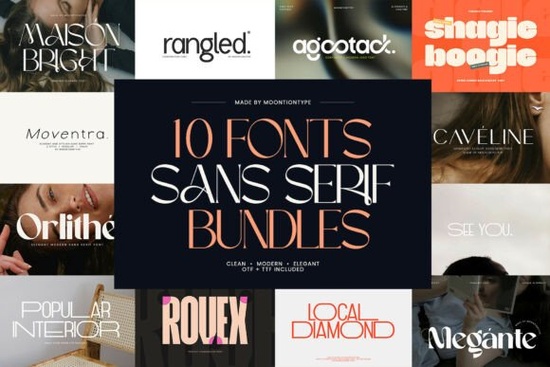
If you're looking for a way to add a touch of elegance and modernity to your design projects, the Modern Sans Serif Bundles Font is a great choice. This bundle is designed for creators who appreciate clean, elegant, and timeless typography. It’s perfect for a wide range of applications, from high-end logos to social media graphics, websites, and packaging.
Why Choose the Modern Sans Serif Bundles Font?
The Modern Sans Serif Bundles Font stands out for its versatility and minimalist aesthetic. Each typeface in the bundle is inspired by luxury branding, editorial layouts, and contemporary design trends. This makes it an excellent choice for designers, crafters, print-on-demand sellers, small businesses, and creative hobbyists who want to give their work a polished and professional look.
What Makes These Fonts Unique?
The fonts in this bundle are carefully crafted to be both functional and visually appealing. They offer a balance between simplicity and sophistication, making them suitable for a variety of design needs. Whether you’re working on a brand identity, creating a new website, or designing a set of social media graphics, these fonts can help you achieve a cohesive and high-end look.
How Can You Use These Fonts in Your Projects?
Here are some practical ways to incorporate the Modern Sans Serif Bundles Font into your design projects:
- Logos and Branding: Create a memorable and professional logo that reflects the values of your brand. The clean lines and elegant forms of these fonts make them ideal for high-end branding.
- Social Media Graphics: Design eye-catching social media posts that stand out. The minimalist style of these fonts can help your content look more polished and engaging.
- Website Design: Use these fonts to create a seamless and sophisticated user experience on your website. The readability and elegance of the typefaces can enhance the overall design and usability of your site.
- Packaging and Print Materials: Add a touch of luxury to your packaging and print materials. These fonts can help you create a consistent and high-quality look across all your printed collateral.
Comparing with Other Sans Serif Fonts
While there are many sans serif fonts available, the Modern Sans Serif Bundles Font offers a unique blend of elegance and versatility. Here’s how it compares to some other popular options:
- Life Planner Duo Font: This font is great for planners and organizational designs but may not have the same level of luxury and sophistication as the Modern Sans Serif Bundles Font.
- Ragonte Font: Known for its bold and modern style, Ragonte is a good choice for headlines and titles but might not be as versatile for body text and smaller details.
- Gaglio Font: Gaglio has a more geometric and structured feel, which can be great for certain design styles but may not offer the same level of elegance and refinement.
- Amavera Font: Amavera is a stylish and modern font, but it may not have the same range of weights and styles as the Modern Sans Serif Bundles Font, limiting its versatility in different design contexts.
Tips for Using the Modern Sans Serif Bundles Font Effectively
To get the most out of the Modern Sans Serif Bundles Font, here are some tips:
- Test Different Weights and Styles: Experiment with the various weights and styles included in the bundle to find the best fit for your project. This can help you achieve the right balance of readability and visual impact.
- Combine with Complementary Fonts: Consider pairing the Modern Sans Serif fonts with complementary serif or script fonts to add depth and variety to your designs. Just make sure the fonts complement each other well.
- Use White Space Wisely: The minimalist nature of these fonts works well with ample white space. Use it to create a clean and uncluttered look that enhances the overall design.
- Stay Consistent: Maintain consistency in your use of the fonts across different elements of your design. This helps to create a cohesive and professional appearance.
Final Thoughts
The Modern Sans Serif Bundles Font is a valuable addition to any designer’s toolkit. Its clean, elegant, and versatile nature makes it a go-to choice for a wide range of design projects. By following the tips and using the fonts creatively, you can create designs that are both visually appealing and professional.